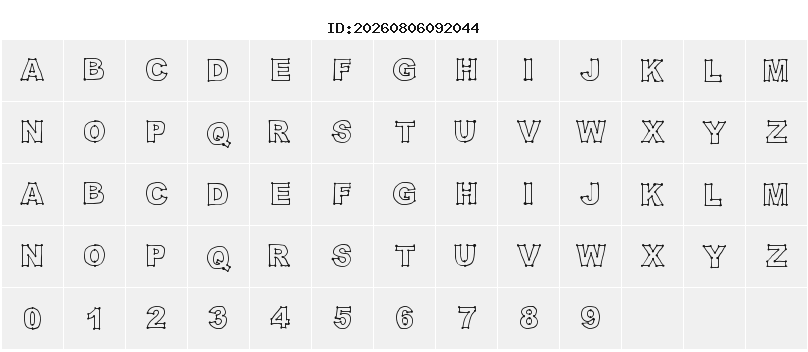
Original 301.ttf
• Designer: Woodcutter Manero
About Original 301.ttf
Original 301.ttf is a modern, elegant sans-serif font designed for ultimate readability and visual harmony. Perfect for branding, headlines, web design, and print materials.